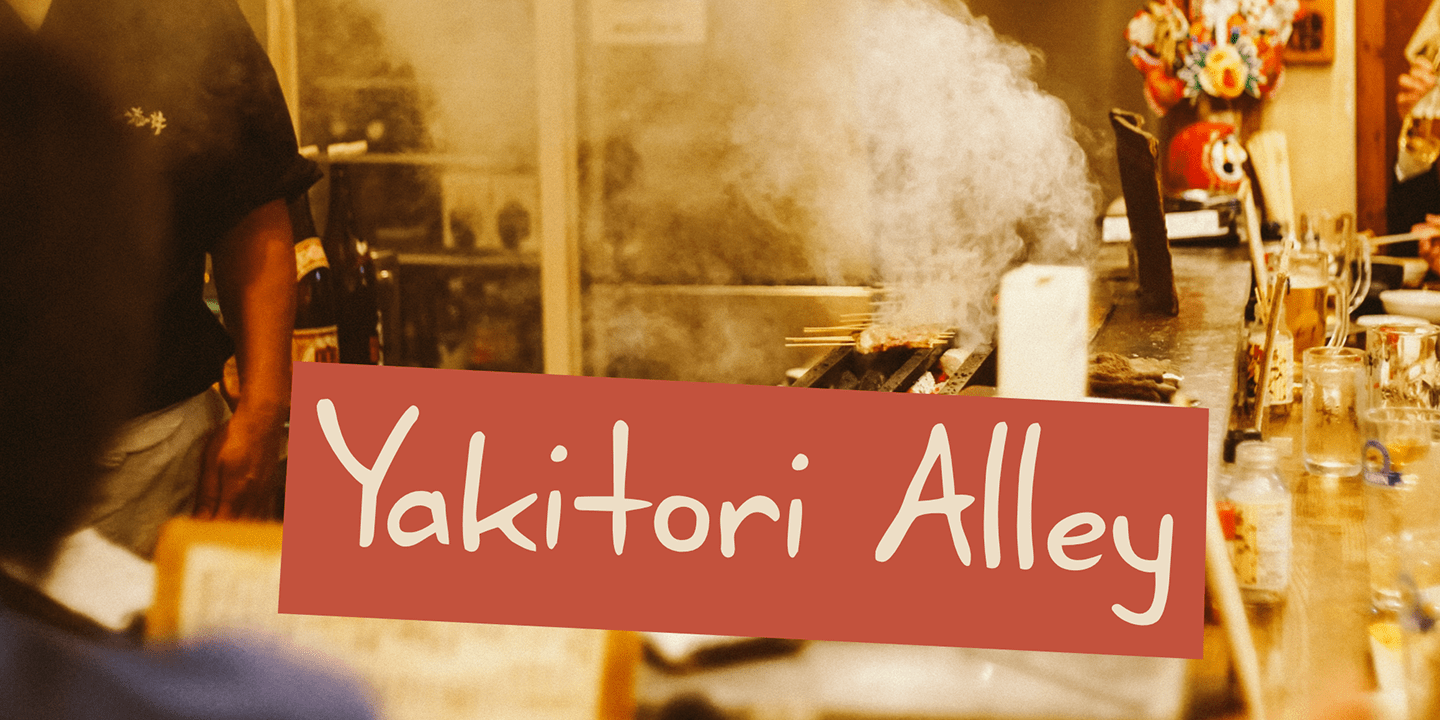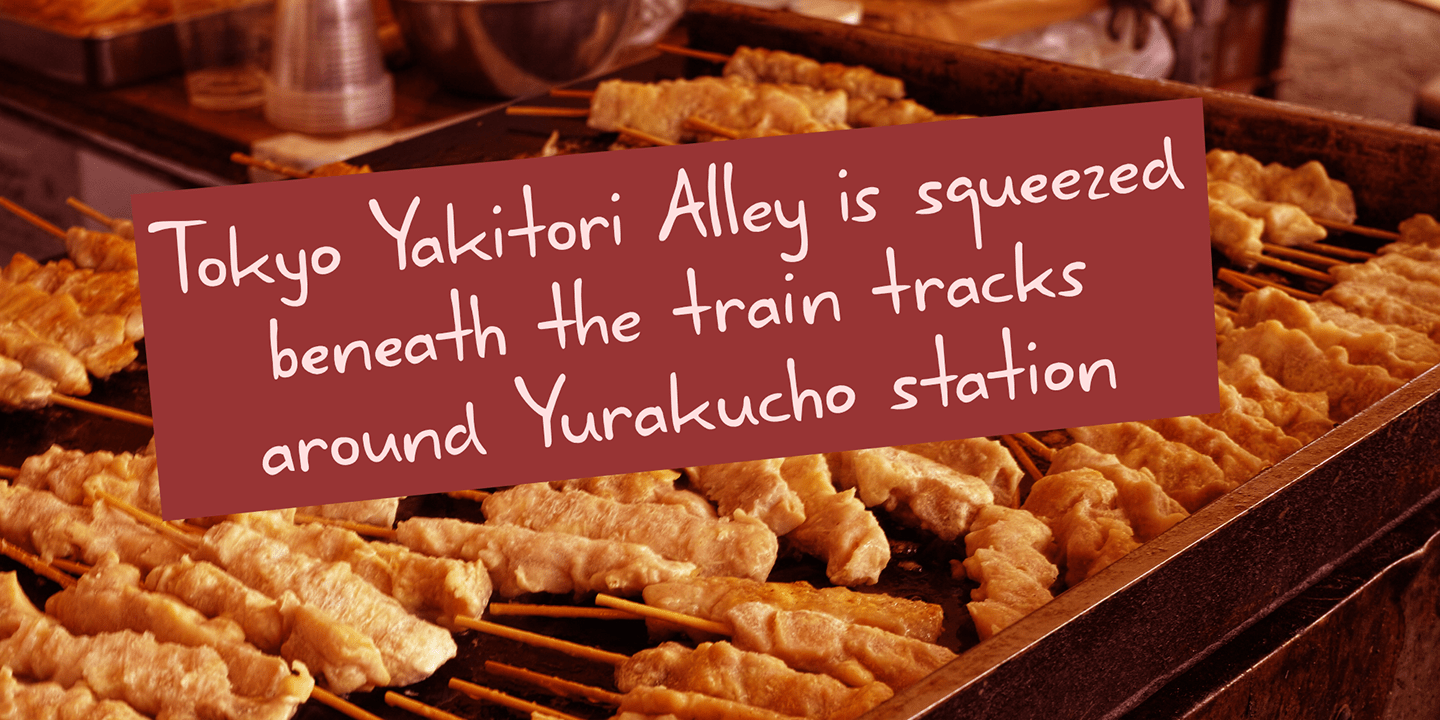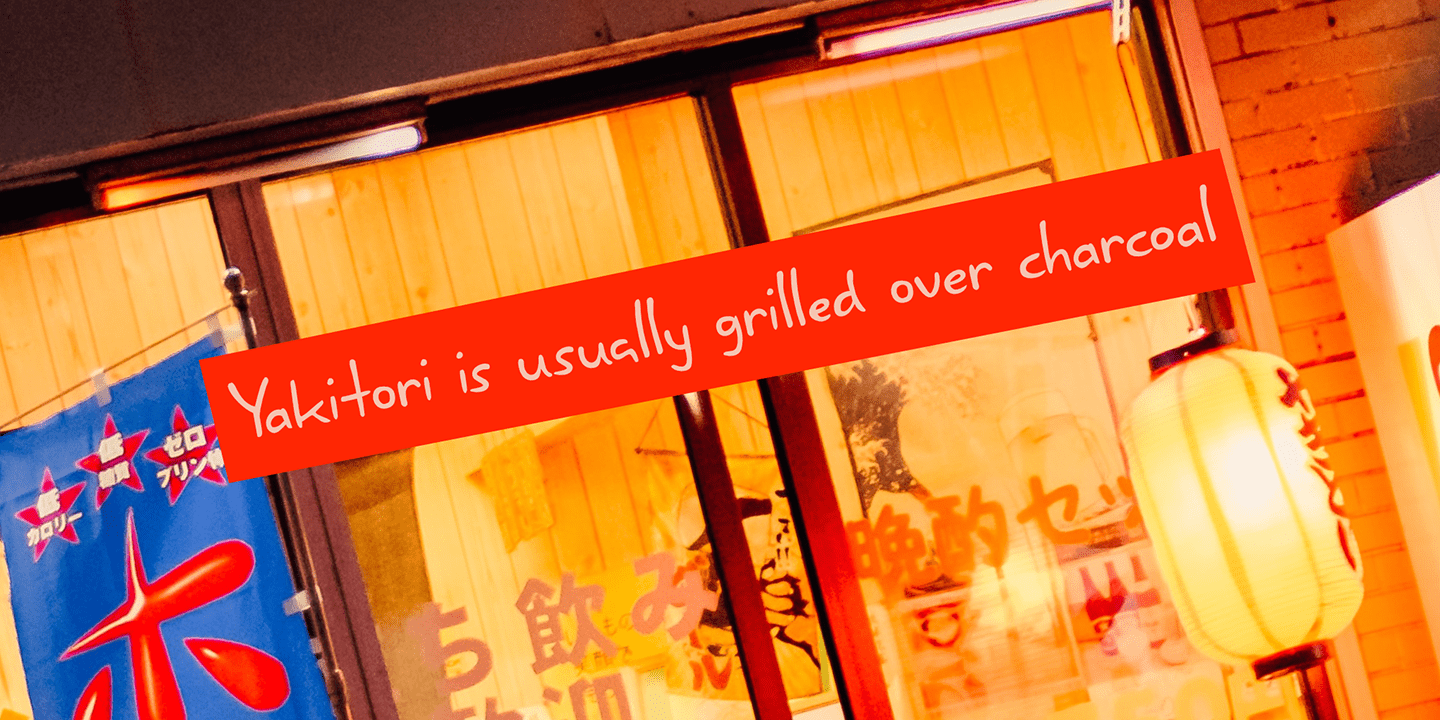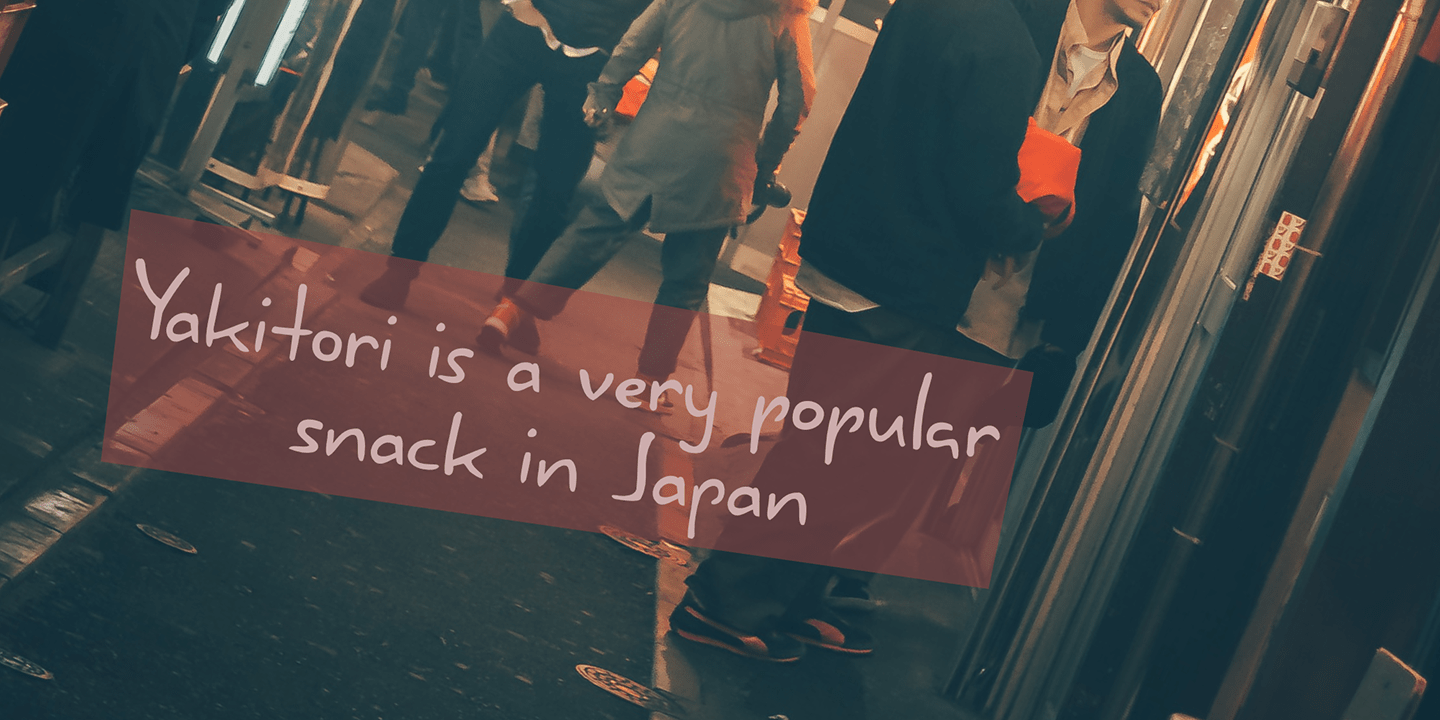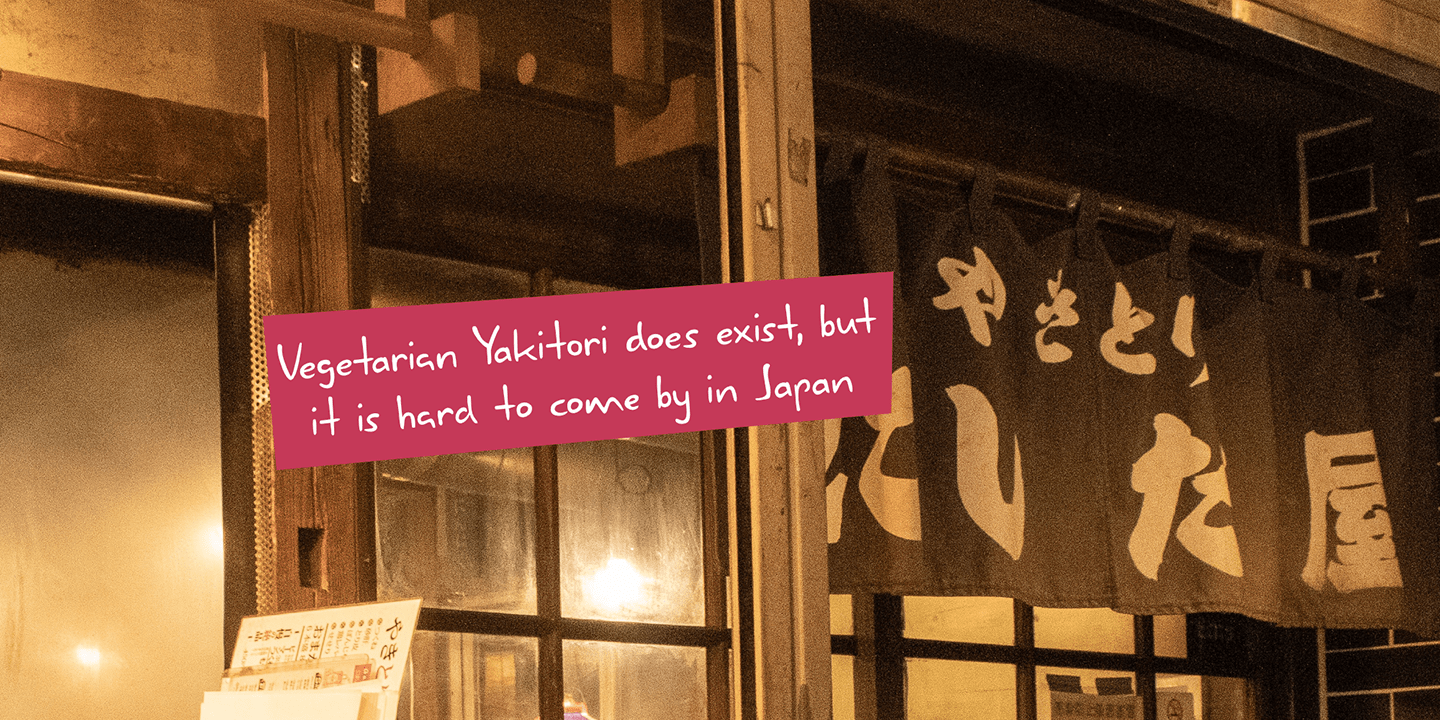
Yakitori Alley
Font Family by Kitchen Table Type Foundry
My son Sam saved all his pennies for a trip to Japan with me. His dream came true this year and we traveled around Honshu for 10 days. One of the things on his 'to do? list was eating yakitori, so I took him to famous Yakitori Alley in Tokyo. The setting was legendary, the smell was great, but the yakitori, unfortunately, was so-so..
Yakitori Alley is a fun, scribbly script font with language support and a set of contextual alternates.